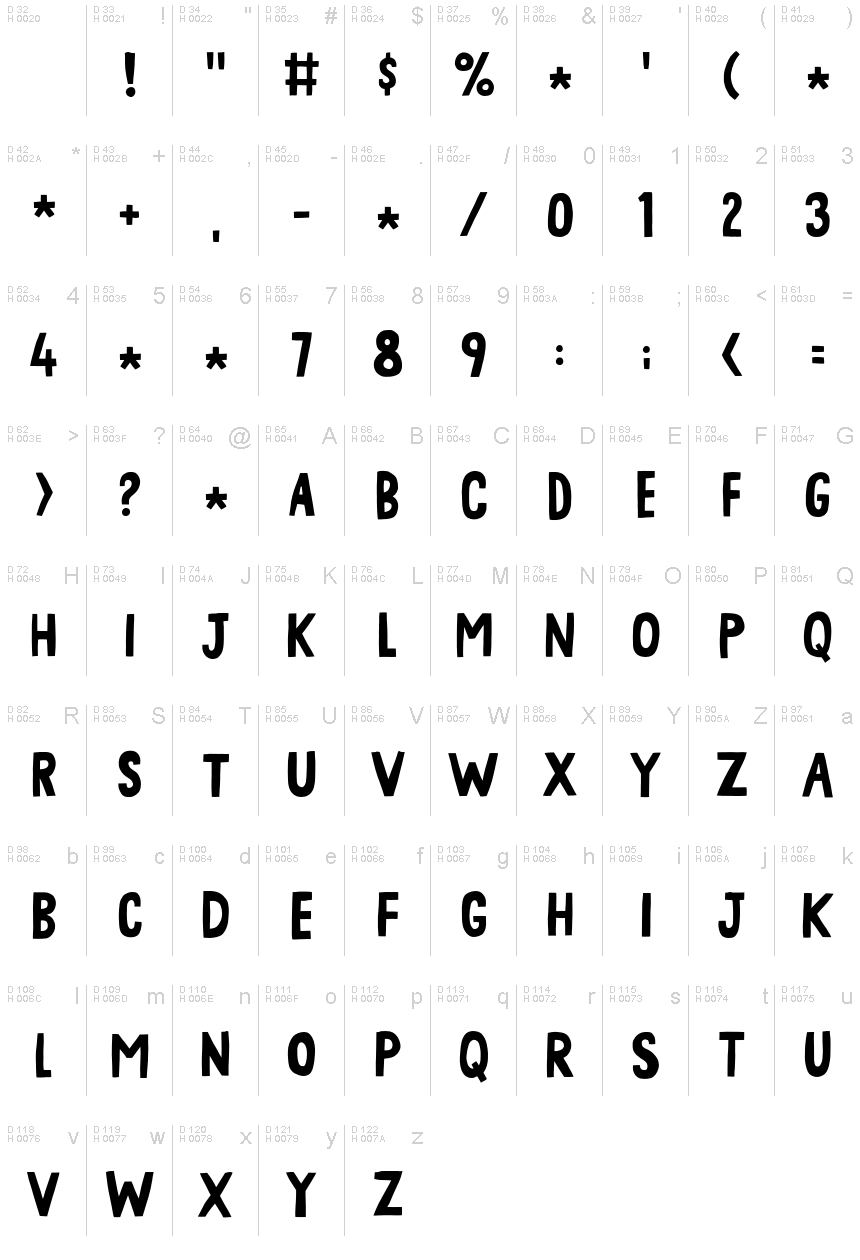
Cheesy Fingers font, designed by Pizzadude, is a delightful display typeface that embodies a whimsical cartoon style. Its playful and exaggerated forms create an inviting visual appeal, making it perfect for capturing attention. The condensed nature of the characters adds to its charm, allowing the font to stand out boldly in various contexts.
Visually striking and fun, Cheesy Fingers is ideal for eye-catching headlines, vibrant posters, or playful branding that aims to evoke joy and creativity. Its unique personality makes it suitable for children’s products, food-related themes, or any project seeking a lighthearted touch. With its engaging design, this font transforms ordinary text into an exciting visual experience.